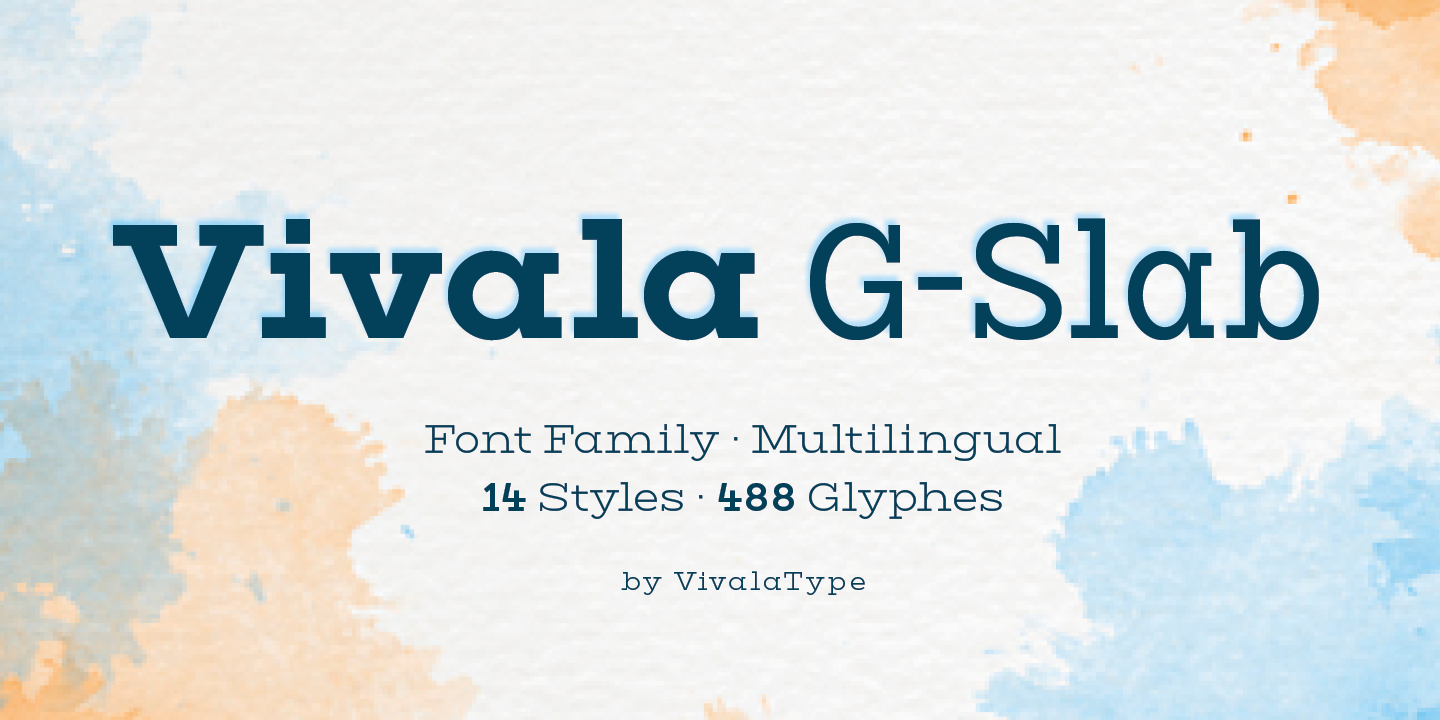
Vivala G Slab Font is perfect for vintage poster designs, retro magazine layouts, classic newspaper headlines, antique shop branding, old-fashioned restaurant menus, historical museum displays, traditional publishing houses, heritage brand identities, and nostalgic advertising campaigns.
What makes Vivala G Slab Font so exciting is its timeless vintage charm and robust slab serif character that captures the essence of classic typography from the golden age of print. This distinguished typeface combines traditional craftsmanship with modern reliability, creating an authentic connection to typographic history that resonates with audiences who appreciate classic design and nostalgic elegance.
Vivala G Slab Font family includes multiple vintage variations: Regular weight, Bold vintage style, Light classic version, Condensed retro format, Extended heritage edition, Rough weathered effects, Outline antique design, and Shadow traditional option. Each family member maintains the signature vintage authenticity while offering comprehensive typographic solutions for classic design applications and retro branding projects.
Experience the nostalgic power of Vivala G Slab Font Free Download - a typeface that brings authentic vintage elegance and classic typography tradition to your most timeless creative projects. Whether you're designing heritage brand materials, retro marketing campaigns, or historical documentation, this font delivers genuine vintage appeal that connects with audiences who value craftsmanship and tradition.
The versatility of Vivala G Slab Font excels across both digital and print vintage applications. It performs beautifully in retro websites, classic mobile interfaces, vintage packaging designs, and traditional signage, maintaining its authentic slab serif character across all platforms. The font's carefully engineered spacing ensures excellent readability while preserving its distinctive vintage personality and classic charm.
Professional designers consistently choose Vivala G Slab Font for projects requiring vintage authenticity and classic typography appeal. Its distinguished character makes it ideal for brands focused on heritage, tradition, and timeless quality, helping establish credibility and nostalgic connections with audiences who appreciate authentic vintage design and classic craftsmanship.